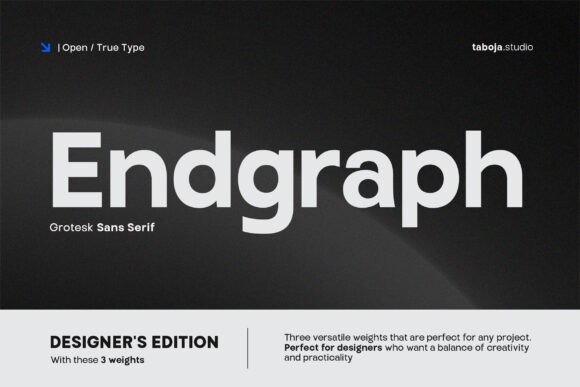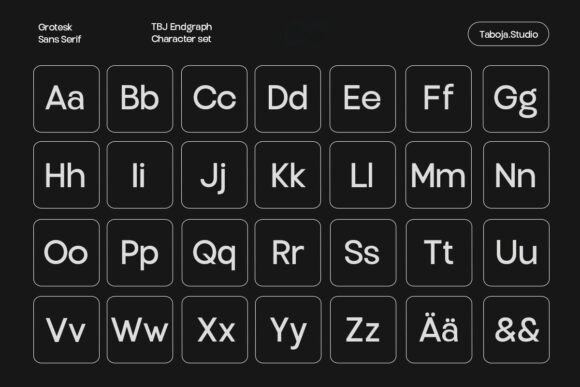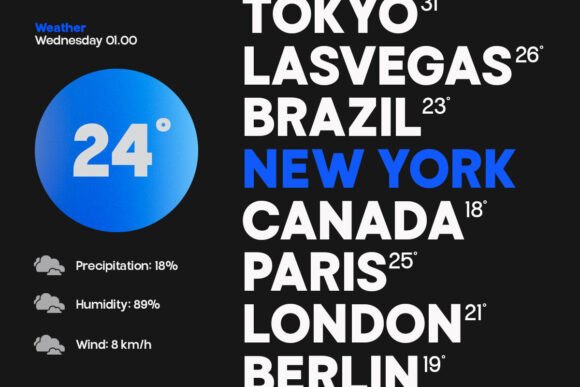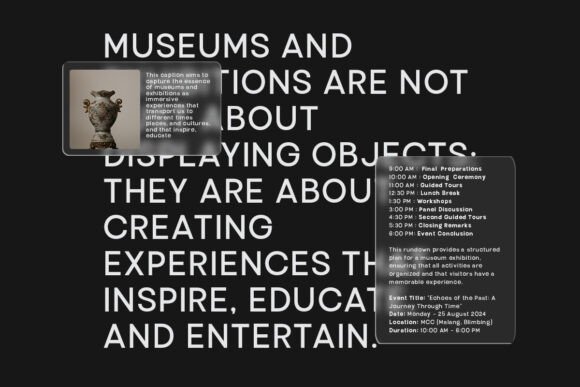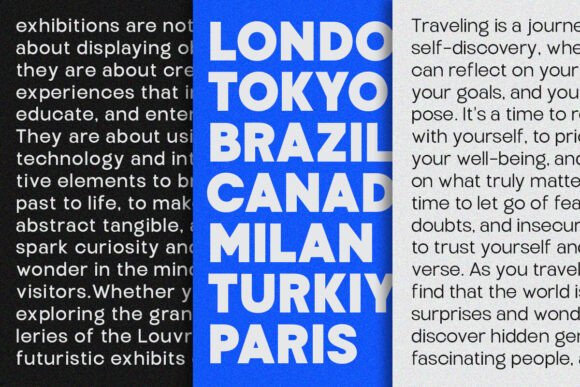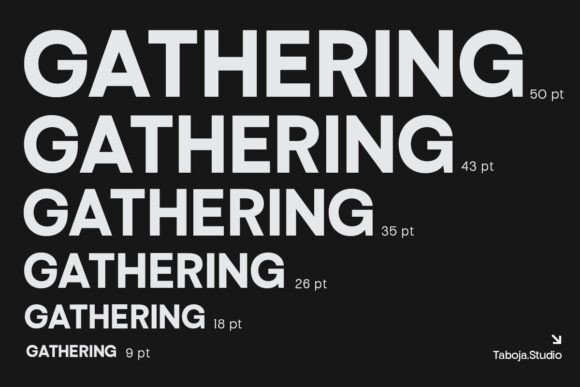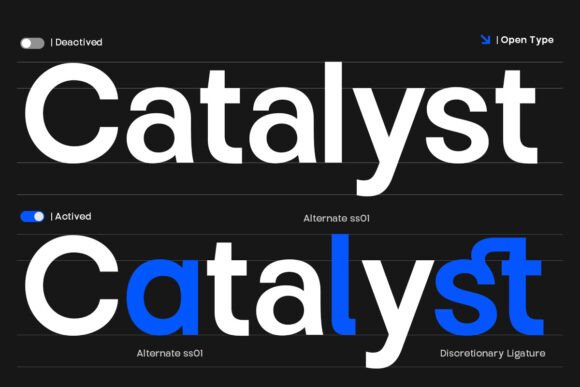
Unlock the Full Potential of Your Designs with the TBJ Endgraph Font
There’s nothing quite like the thrill of bringing a design idea to life. The spark of creativity ignites, and you’re off and running, envisioning the perfect typography to match your vision. But, let’s face it – finding the right font can be a daunting task. That’s where the TBJ Endgraph Designer’s Edition comes in – a versatile and elegant font family designed to give you the flexibility you need to bring your creative projects to life.
With its three adaptable weights, the TBJ Endgraph Font is the perfect companion for designers seeking a consistent and professional look across all their creative works. Whether you’re crafting bold headlines or detailed body text, this font family provides the perfect blend of style and substance. By incorporating the TBJ Endgraph Font into your design arsenal, you’ll be able to give your projects a contemporary edge that’s sure to impress.
Endgraph Font Key Features
- Unique Characteristics: The font features a unique blend of geometric and organic elements, creating a distinctive and eye-catching visual style.
- Font Family: Endgraph Font is part of a larger font family, offering a range of weights, from Light to Bold, allowing for versatility in design applications.
- Language Support: The font supports multiple languages, including Latin, Cyrillic, and Greek scripts, making it a suitable choice for international design projects.
Endgraph Font Review
Overall, I think the Endgraph Font is a solid choice for designers looking for a unique, modern sans-serif font. ✨ Its clean lines, geometric shapes, and subtle rounded edges give it a sleek, contemporary feel that would work well in a variety of design contexts.
- What works well:
- ✨ Clean and modern design
- ✨ Excellent legibility, both on screen and in print
- ✨ Wide range of weights and styles to choose from
- Limitations:
- ⚠️ Limited language support
- ⚠️ Some users may find the font too minimalist or lacking in character
- ⚠️ Not ideal for complex or dense text
Overall, I’d say the Endgraph Font is a good choice for designers who want a clean, modern look without a lot of frills. While it may not be the most versatile font, it’s certainly a solid addition to any design toolbox. With a little creativity, the Endgraph Font can help you create some truly stunning designs.
Tips: Use the Endgraph font for titles and headings to add a touch of modernity to your designs. Experiment with different font sizes and colors to create a visually appealing effect.
Tips: Use the Endgraph font for logos, titles, and headings to add a touch of sophistication to your designs. Experiment with different font sizes and colors to create a unique look.
Tips: Use the Endgraph font for titles, headings, and body text to create a consistent and modern look. Experiment with different font sizes and colors to create a visually appealing effect.
The Endgraph font is perfect for:
– Modern and minimalist designs
– Creative and artistic projects
– Logos and branding materials
– Titles and headings in presentations and documents
Alternatives to Endgraph Font for Designers
Akkurat Font
Akkurat Font is a sans-serif font designed by Hermann Eidenbenz in 1968. It is known for its clean and modern design, making it suitable for various design projects such as logos, brochures, and websites. Akkurat Font is a great alternative to Endgraph Font as it offers a similar aesthetic but with a more classic feel.
Montserrat Font is a sans-serif font designed by Julieta Ulanovsky in 2011. It is a modern and urban font that is ideal for digital design projects such as websites, mobile apps, and social media platforms. Montserrat Font is a great choice for designers who want a font that is bold and attention-grabbing, but still easy to read.